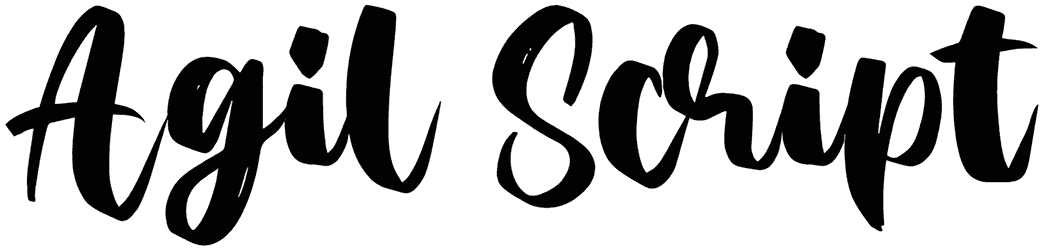
Agil Script Font
This modern brush font, Agil Script, is perfect for use in any design, like posters and banners, and it also looks excellent on book covers and magazine articles.